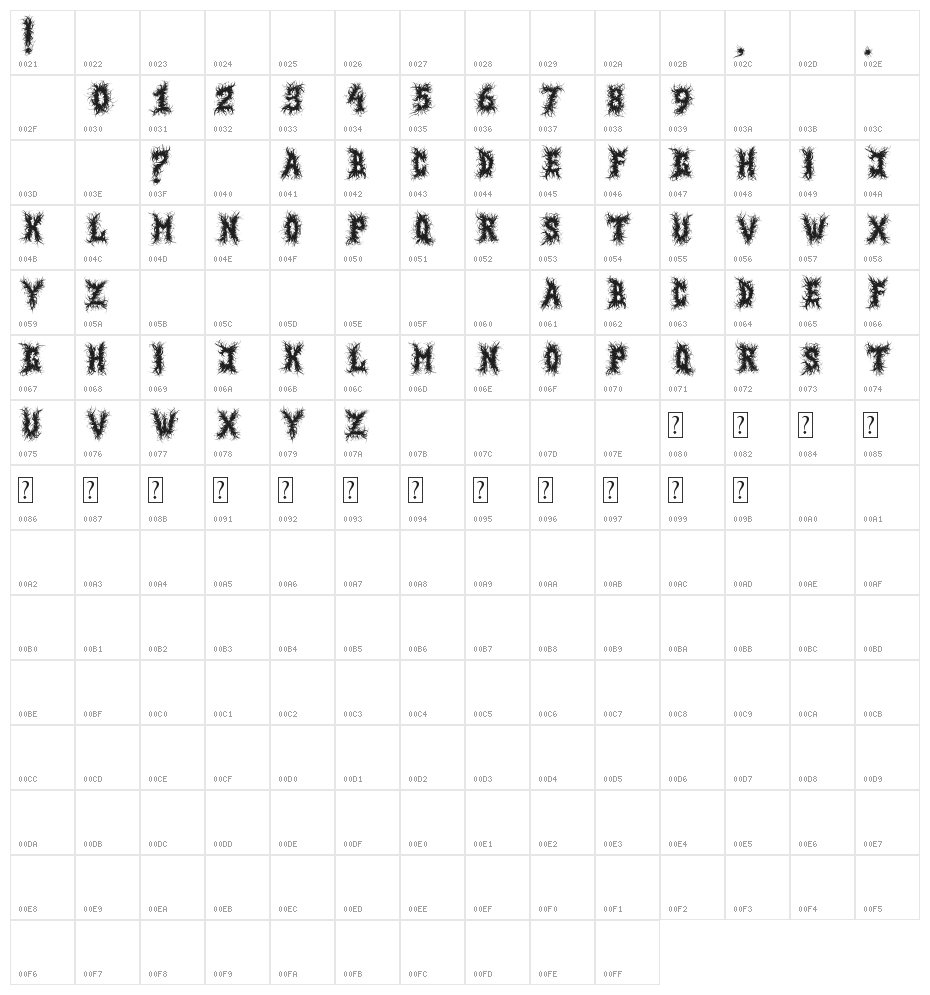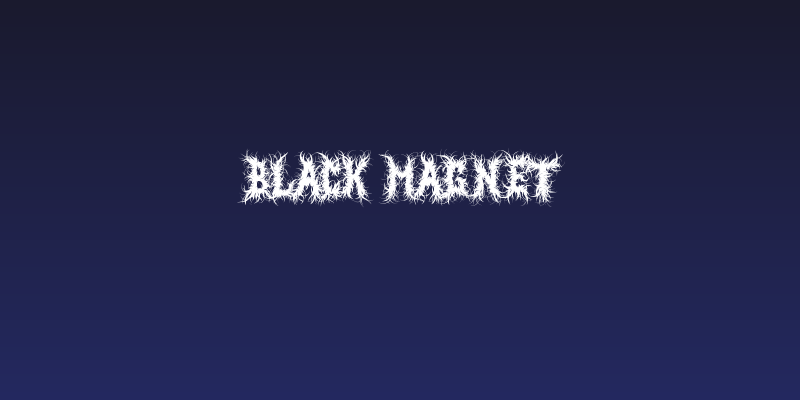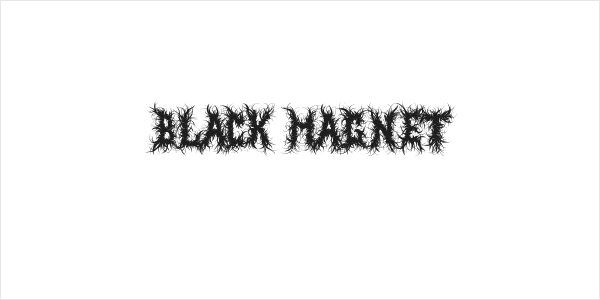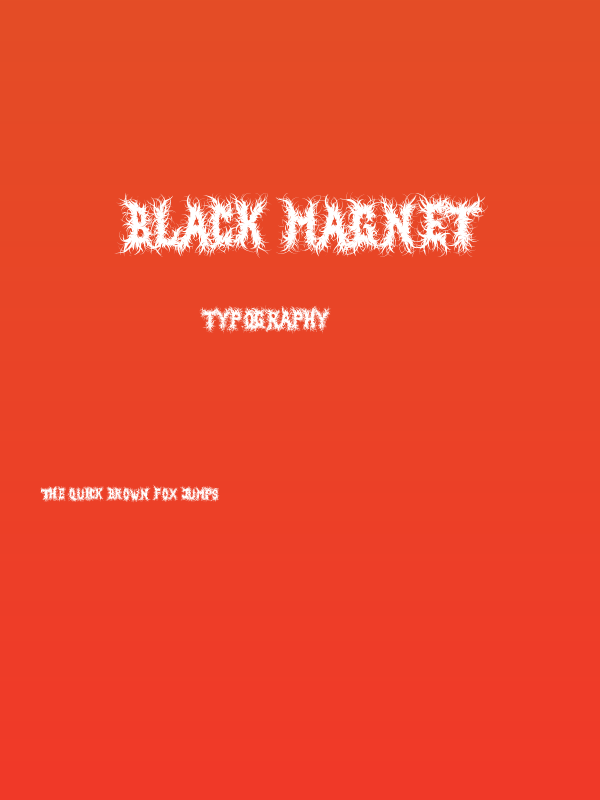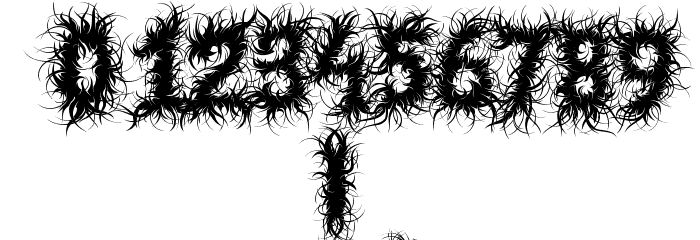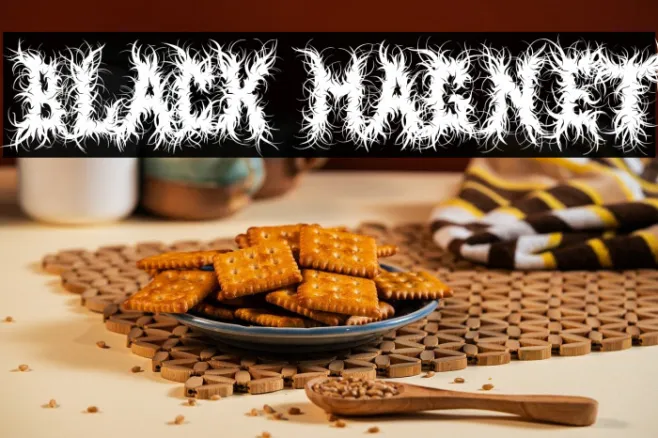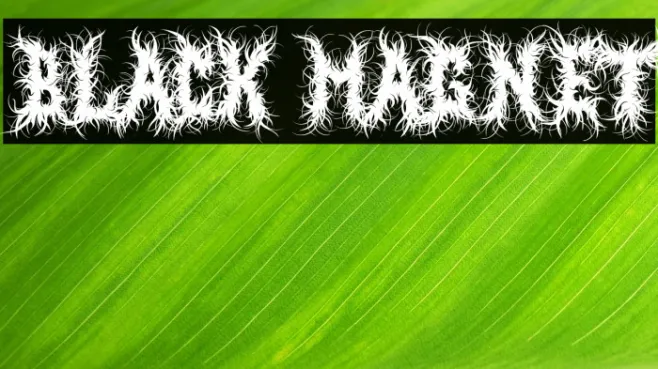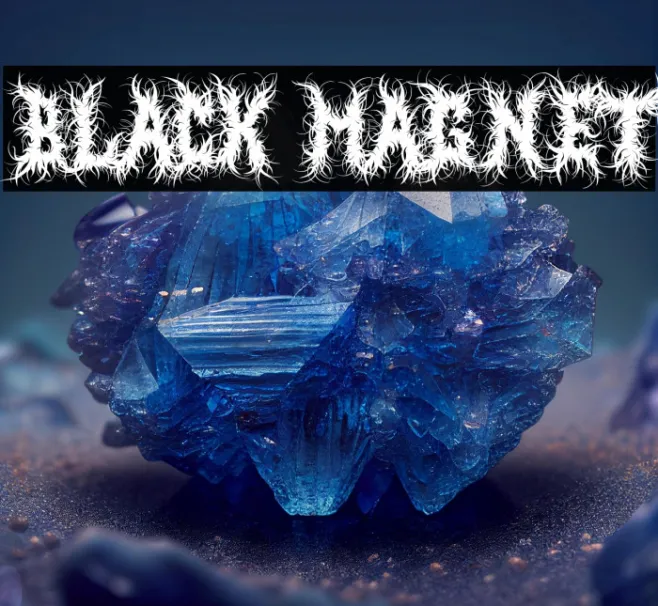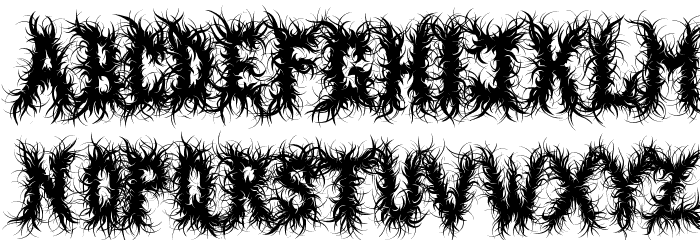
Black Magnet Font
Black Magnet Description
This font features a highly decorative and chaotic design, with each character appearing as if it is composed of tangled, thorny vines. The intricate detailing creates a sense of movement and intensity, making it a standout choice for projects that require a bold and unconventional aesthetic. The letters are densely packed with swirling lines, giving them a textured and almost three-dimensional appearance. This font is not suited for readability in body text but excels in creating dramatic visual impact in titles or artistic compositions.
| Proposed Projects | Ideal for album covers, horror-themed posters, or edgy branding projects. |